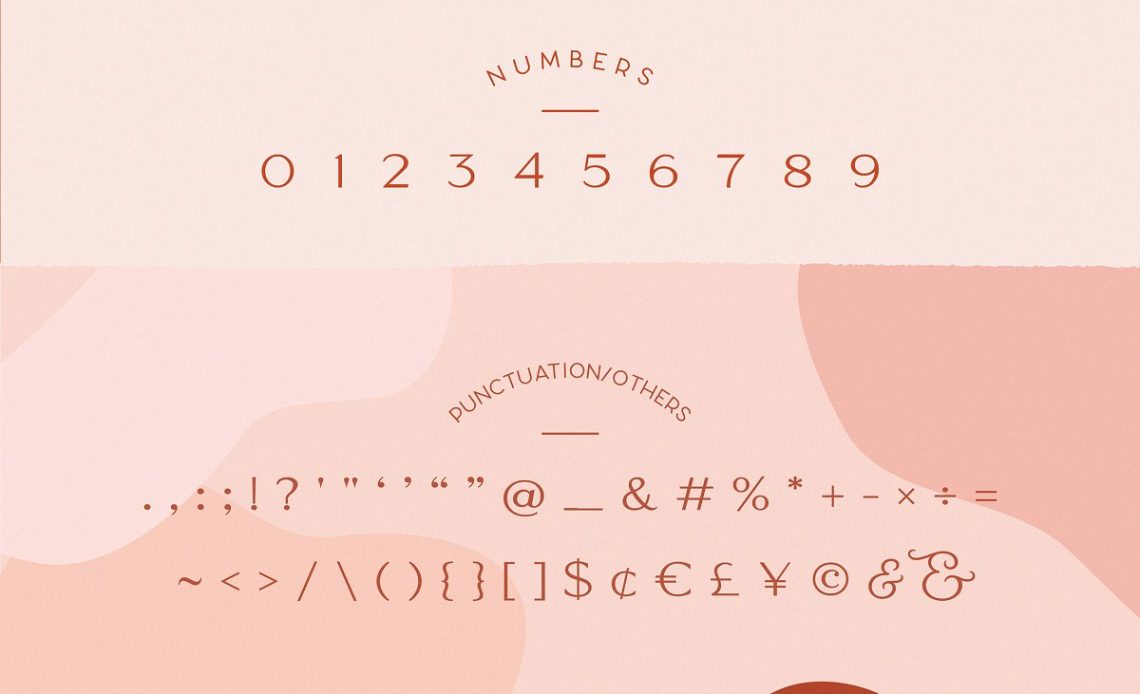
Are you looking for the best fonts to elevate your luxury brand? Look no further than Classy Marisa - the modern, elegant sans serif font created by NEWFLIX Bro.
Classy Marisa is not just any font. It's a minimalist vintage font that's perfect for branding projects, logo designs, product packaging, and magazine headers. Its beautiful ligatures and tons of special alternative glyphs make it a versatile font that works great in both large and small sizes.
With 4 weights, all caps, numerals, punctuation, and accented characters, Classy Marisa is perfect for creating stylish text overlays on any background image. Plus, it supports multiple languages, so you can reach a global audience.
But what sets Classy Marisa apart from other fonts is its ability to evoke emotion and capture the essence of luxury. Its sleek, modern design exudes sophistication, making it the perfect choice for luxury brands looking to elevate their image.